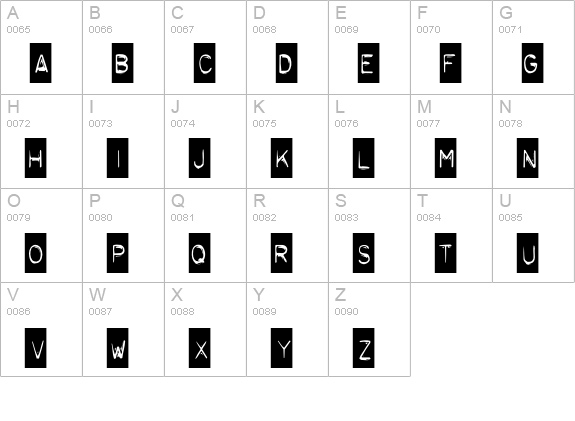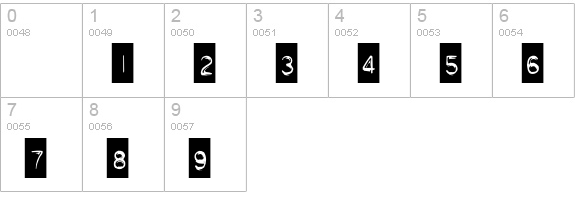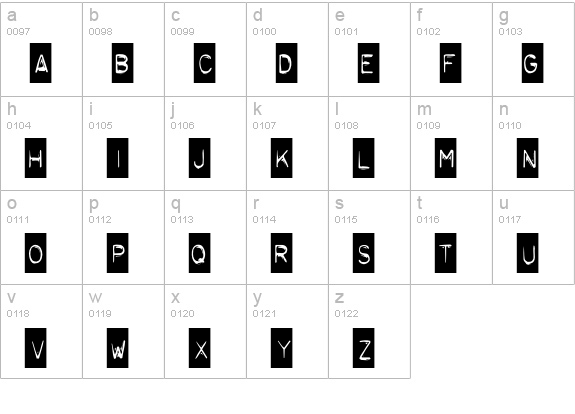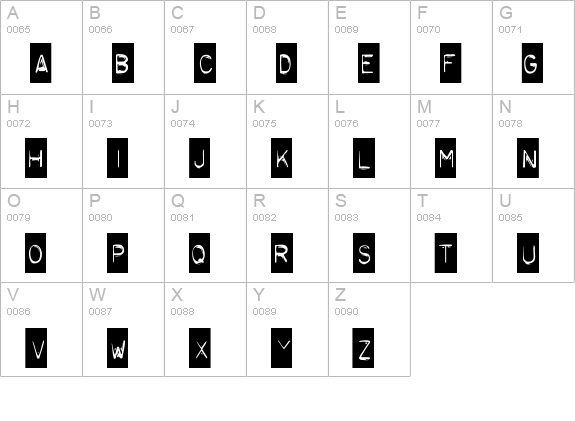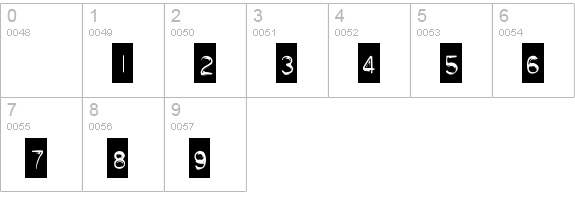
TypoNegative Font Details
Introducing TypoNegative, a captivating and distinctive font that effortlessly blends boldness with elegance. This unique typeface is sure to make a lasting impression on any design project, whether it be for branding, advertising, or artistic endeavors. TypoNegative exudes a sense of modernity and sophistication, with its sleek lines and sharp edges. Each character is meticulously crafted to create a visually striking aesthetic that stands out from the crowd. From its graceful curves to its attention-grabbing angles, this font is a true masterpiece of typographic design. What sets TypoNegative apart is not only its visual appeal but also its versatility. It seamlessly adapts to various design contexts, making it suitable for a wide range of applications. Whether it's used for headlines, body text, or even logos, this font adds a touch of professionalism and sophistication to any project. And the best part? TypoNegative is completely free! Yes, you read that right. This remarkable font is freely available to download at FontsMarket.com. Now, you can elevate your designs without breaking the bank. It's a fantastic opportunity to access a premium-quality font without spending a dime. So why wait? Experience the power and beauty of TypoNegative today. Download it for free at FontsMarket.com and unlock a world of endless design possibilities. Let your creativity soar with this remarkable font that is sure to leave a lasting impression on your audience.